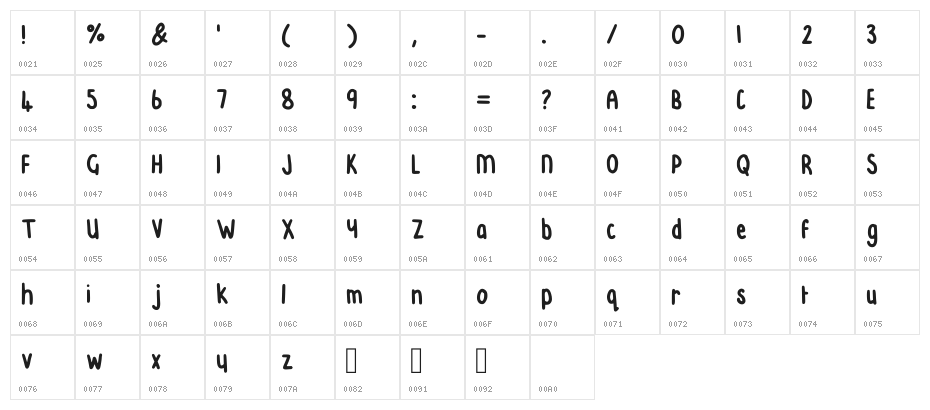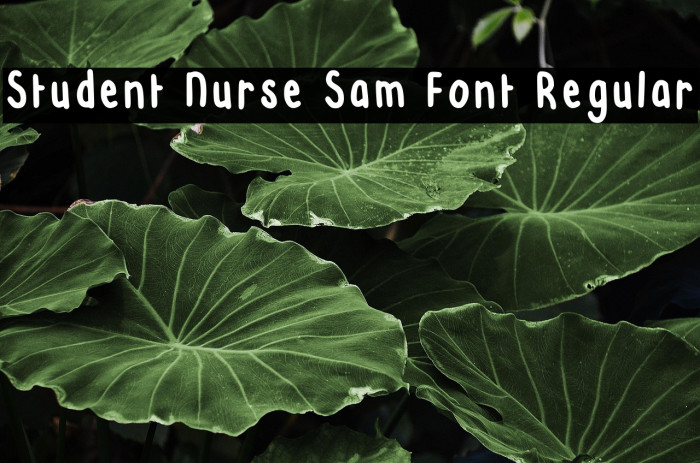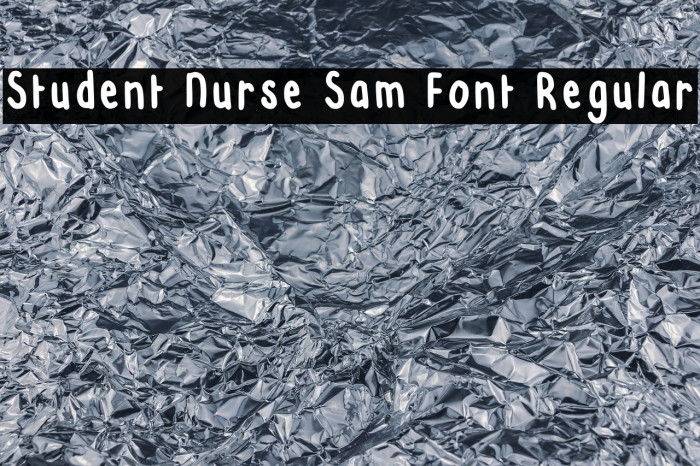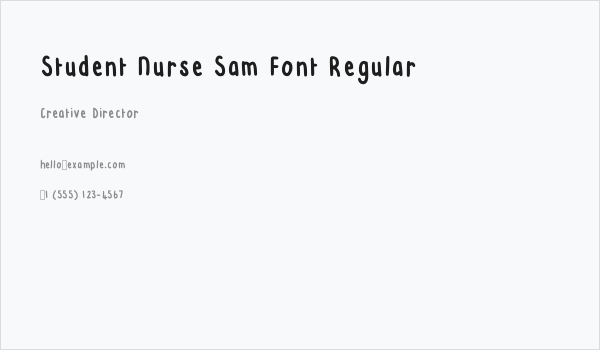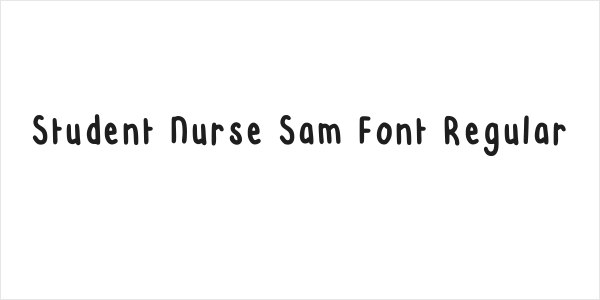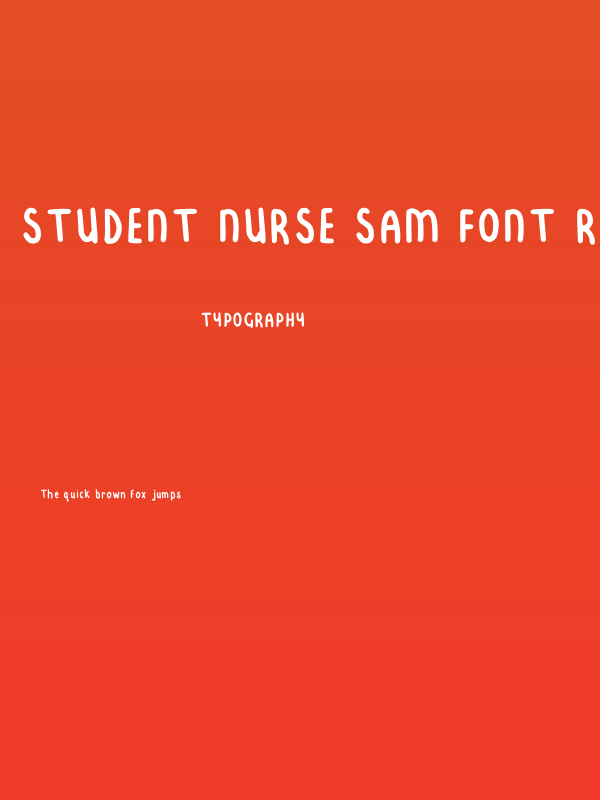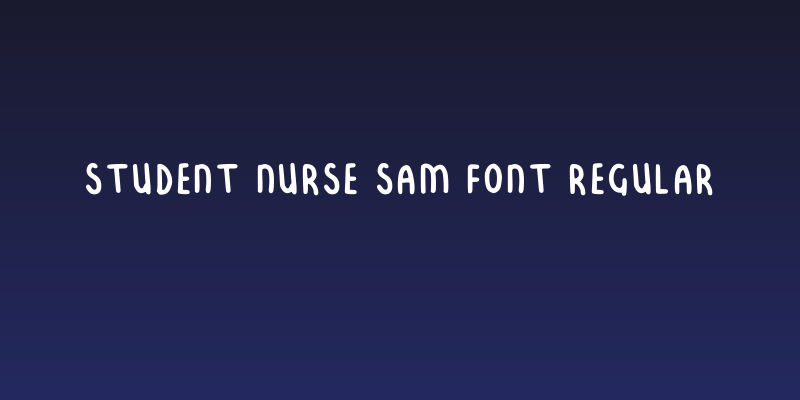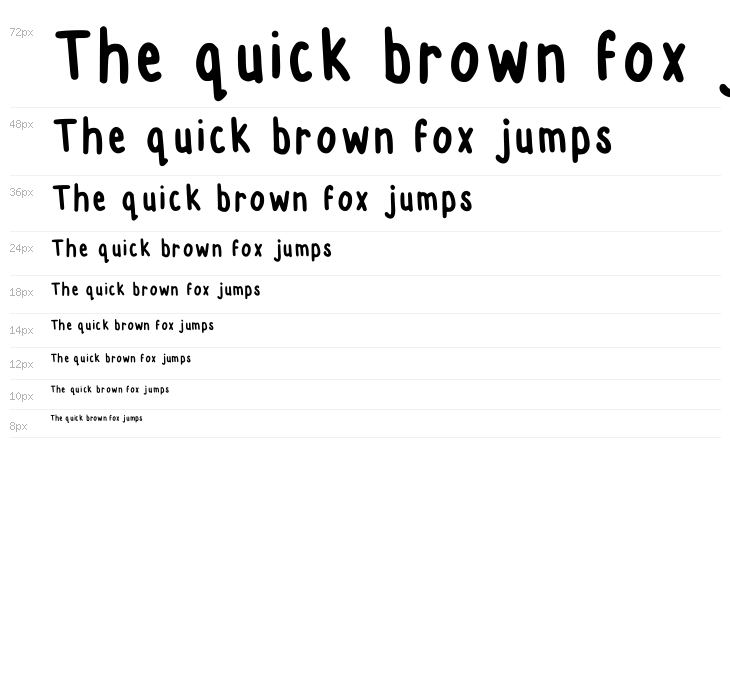
Student Nurse Sam Font Regular Font
Student Nurse Sam Font Regular Description
A playful, handwritten font with rounded edges and a casual style, suitable for informal and friendly designs.
| Use Case | Headlines, Informal text, Greeting cards |
| Proposed Projects | Children's books, casual invitations, greeting cards. |